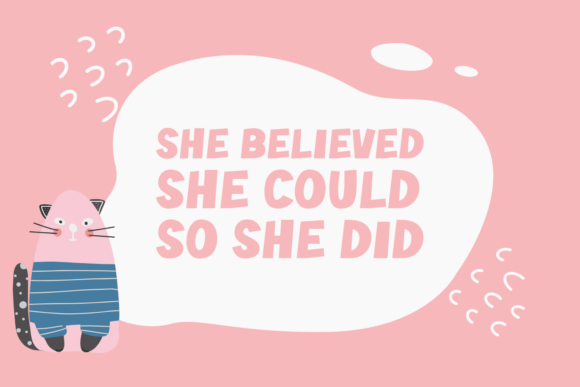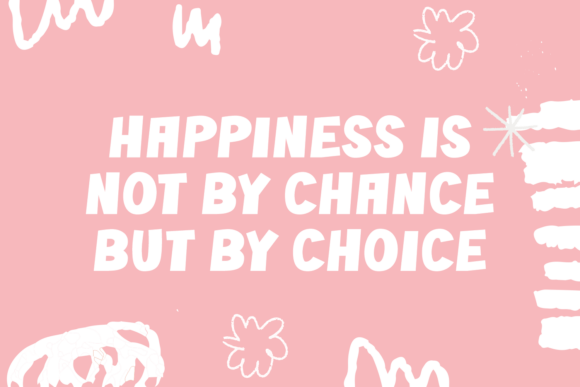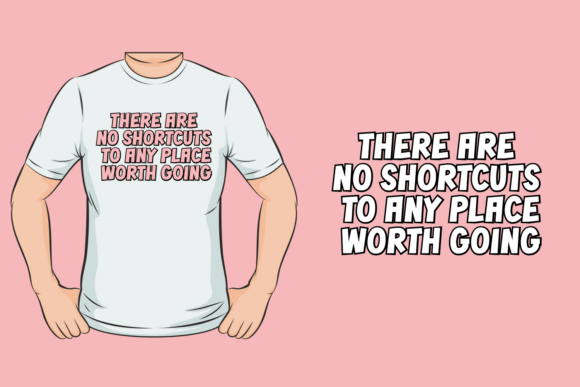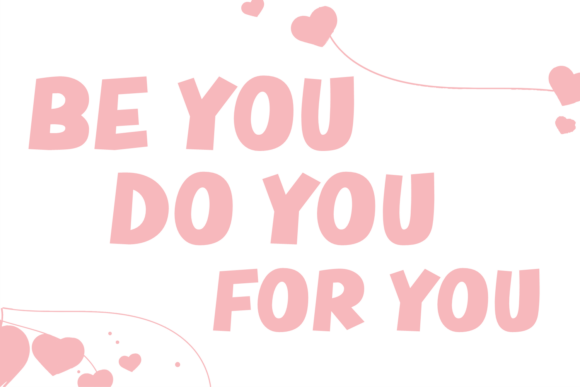
Adding a Splash of Personality to Your Designs
Have you ever stared at a blank page, struggling to bring your creative vision to life? It’s a feeling we’ve all been there. Sometimes, all it takes is the right tool to spark inspiration and set your imagination free. For designers, finding the perfect font can be the key to unlocking a fresh perspective and elevating their work.
Enter Dengan Cerita Font, a bold and quirky display font that’s designed to bring a cheerful and youthful vibe to your designs. This playful font is perfect for children’s projects, posters, social media graphics, product packaging, or any creative work that needs a fun and approachable touch. With Dengan Cerita Font, you can add a unique personality to your designs and connect with your audience on a more emotional level.
Whether you’re a seasoned pro or just starting out, Dengan Cerita Font is a valuable addition to any designer’s toolkit. Its versatility and charm make it an ideal choice for a wide range of creative projects, and its unique style is sure to set you apart from the crowd.
Dengan Cerita Font Key Features
- Font Family: Dengan Cerita is a typeface designed specifically for storytelling, with a unique blend of traditional and modern elements.
- Font Sizes: Supports font sizes ranging from 12pt to 72pt, making it suitable for various design applications, including body text, headings, and titles.
- Resolution: Designed to work well at resolutions up to 300 DPI, ensuring crisp and clear text rendering on high-resolution displays.
- Language Support: Includes comprehensive language support, covering Latin, Cyrillic, and Devanagari scripts, making it an ideal choice for multilingual designs.
- Unique Characteristics: Features a distinctive, hand-drawn aesthetic with subtle texture and flair, adding a touch of personality to any design.
Dengan Cerita Font Review
Overall, I found Dengan Cerita Font to be an interesting and unique font family, designed with a focus on storytelling and cultural heritage.
- Unique character set with distinct letterforms and flourishes.
- Well-suited for titles, headings, and other display text.
- Cultural significance and historical context add depth to the design.
- Readability can be affected by the intricate details and flourishes.
- Not ideal for large blocks of text, as the font can become overwhelming.
- May require adjustments for digital use, as some glyphs may not render correctly.
While Dengan Cerita Font is not a font for everyday use, it can be a great choice for specific design projects that require a unique, storytelling-driven aesthetic.
Dengan Cerita Font: A Practical Application Guide
Dengan Cerita Font is a unique font style that combines traditional Indonesian calligraphy with modern flair. To use it in your designs, follow these steps:
To get the most out of Dengan Cerita Font, use it in combination with other creative elements, such as illustrations or graphics. Experiment with different font sizes, colors, and styles to create a unique and eye-catching design.
Dengan Cerita Font is perfect for:
Event branding and marketing materials
Personalized gifts and cards